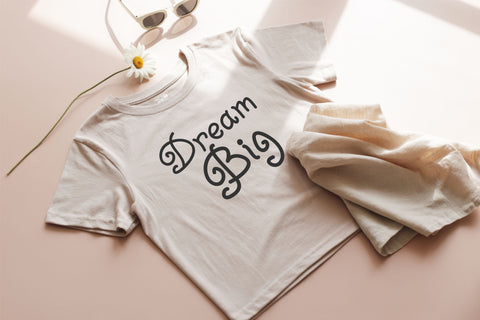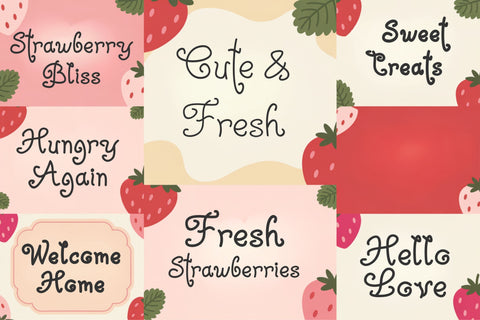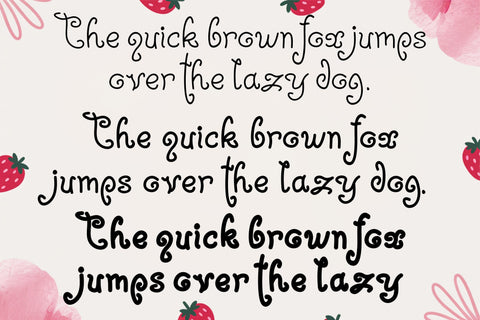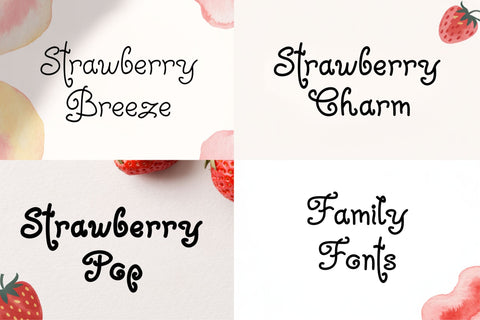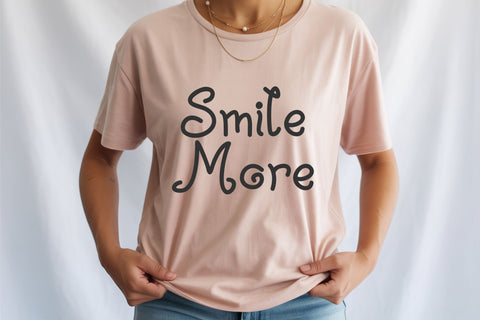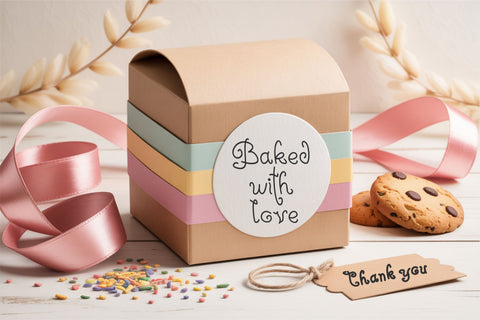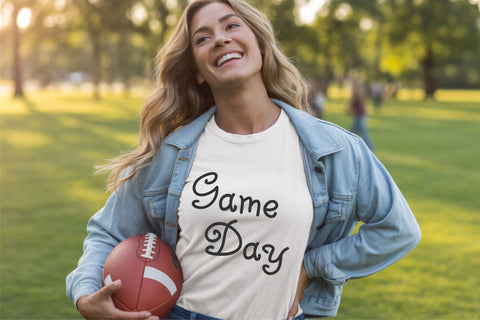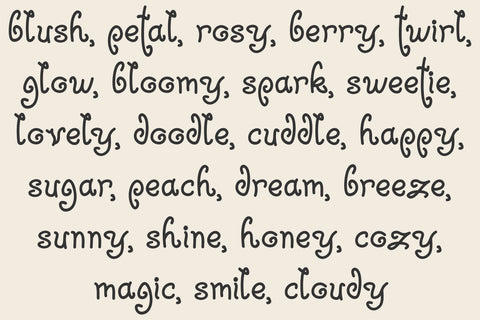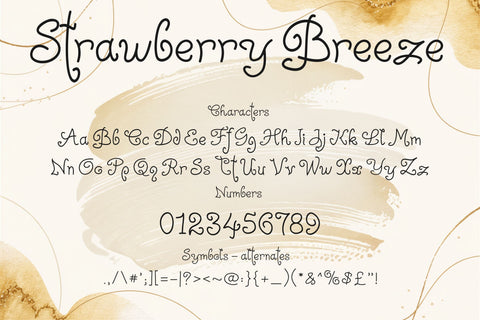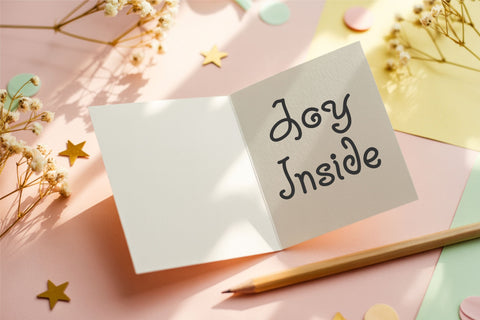
Strawberry Charm Curly Font Bundle | Cute Handwritten Family
Strawberry Charm is a cute curly font bundle designed to bring sweet, playful energy to every creative project. This handcrafted typeface family includes three styles — Regular, Bold, and Lite — each filled with soft swirls, bouncy curves, and a fruity strawberry-inspired aesthetic. Whether you’re crafting quotes, making stickers, designing shirts, or creating classroom printables, this font family adds a fresh, uplifting feel to your artwork.
Each style has its own character: Regular offers a smooth curly look perfect for everyday crafts, Bold creates strong and lively designs that pop, and Lite brings a soft handwritten touch ideal for gentle pastel themes. Together, they form a beautiful font trio you can mix, match, and layer for endless creativity.
Strawberry Charm works beautifully in Cricut and Silhouette, Canva, Procreate, Illustrator, Corel, Affinity, and all cutting and design software. The letters feature clean outlines and rounded shapes that cut smoothly and print crisply, making this family perfect for T-shirts, mugs, posters, planner pages, logo titles, kids' crafts, labels, greeting cards, and fruity summer-themed designs.